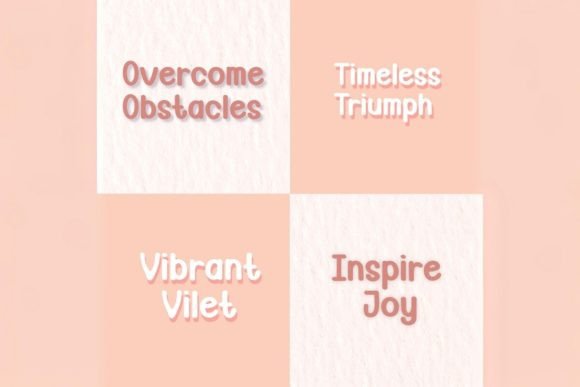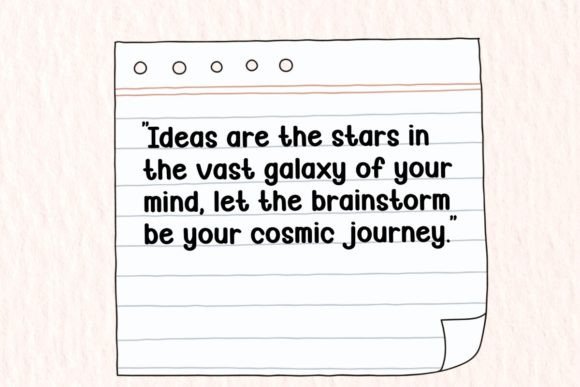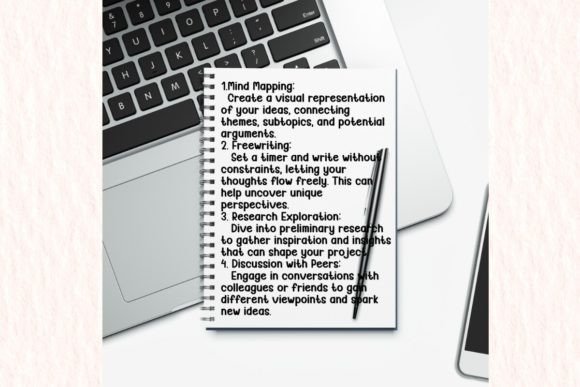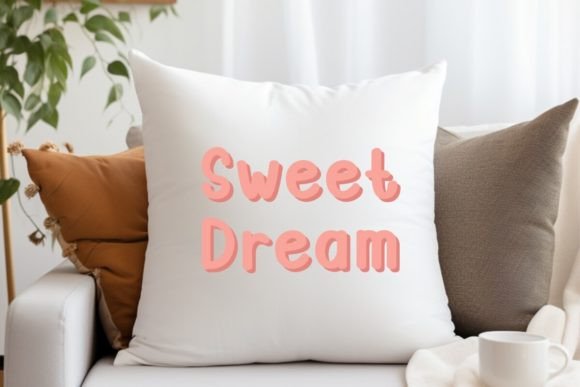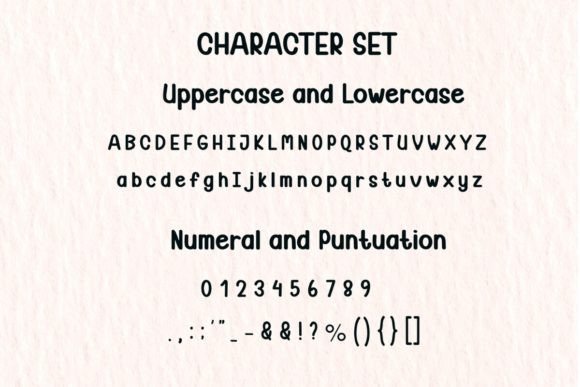
Bring Your Creativity to Life with Bright Idea Font
We’ve all been there – staring at a blank page, waiting for that spark of inspiration to strike. For many creatives, this moment is a thrill of excitement and possibility. It’s when ideas start flowing, and imagination runs wild. This is exactly the feeling you’ll get when you discover Bright Idea Font, a charming and playful handwritten font that’s perfect for adding a touch of whimsy to your projects.
Bright Idea Font is a versatile and lovable font that’s designed to bring out the fun in your designs. Whether you’re working on a digital planner, creating a set of holiday cards, or crafting a unique logo, this font is sure to add a dash of personality and charm. And with its unique sans-serif style, it’s a valuable addition to any designer’s toolkit.
- Font Family: Bright Idea Font is a unique, hand-drawn font family designed for creative and modern applications.
- Unique Characteristics: Features a distinctive, playful style with rounded edges and subtle texture, making it perfect for headings, titles, and creative typography.
- Font Pairing: Designed to pair well with clean sans-serif fonts, creating a balanced and visually appealing contrast for modern designs.
Bright Idea Font Review
Overall, I’m quite impressed with the Bright Idea Font. It’s a unique and quirky typeface that’s sure to grab attention. Here are a few things that work well: ✨
- High contrast: The font’s bold lines and curves create a nice contrast that makes it easy to read.
- Creative flair: The font’s quirky nature makes it perfect for projects that need a bit of personality.
- Wide range of sizes: The font can be scaled up or down without losing its integrity.
- Lack of legibility: At small sizes, the font can be difficult to read due to its complex design.
- Narrow character set: The font is limited to a standard character set, which may not include some special characters or languages.
- Not suitable for body text: Due to its bold nature, the font may not be the best choice for large blocks of text.
Overall, I think the Bright Idea Font is a great choice for titles, headings, and other design elements where you want to add a bit of flair. Just be mindful of its limitations and use it judiciously.
Getting the Most Out of Bright Idea Font
To get the most out of Bright Idea Font, use it to create eye-catching headings and titles. You can also use it to add a touch of personality to your text. Experiment with different font sizes, colors, and styles to find the perfect combination for your project.
Bright Idea Font is perfect for creating presentations, posters, and social media graphics. It’s also great for adding a touch of creativity to your blog posts and articles. Use it to create a bold and attention-grabbing headline or to add a pop of color to your text.